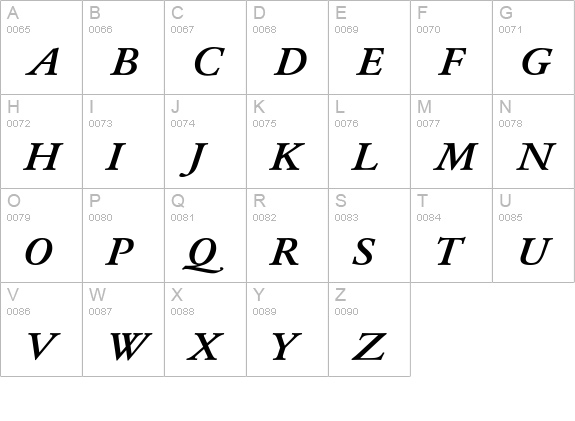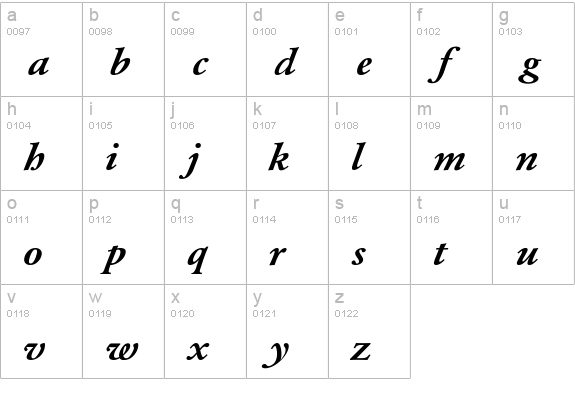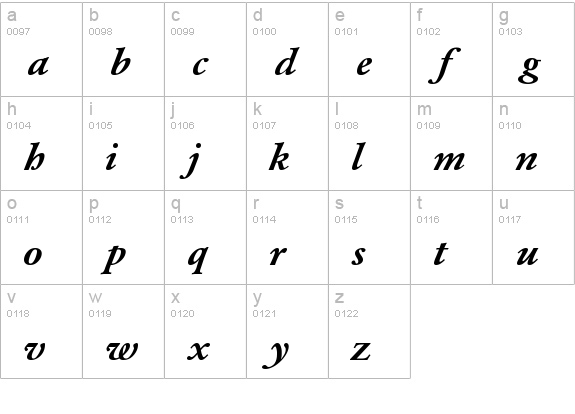
GaramondMediu 4 Font Details
GaramondMedium 4 is a classic and elegant font that exudes sophistication and timelessness. Its balanced letterforms and distinct serifs make it perfect for a wide range of design projects, from formal invitations to branding materials. The medium weight of this font strikes the perfect balance between readability and style, making it ideal for both body text and headlines. What sets GaramondMedium 4 apart is that it is freely available to download at FontsMarket.com. This means that you can access this beautiful font without any cost, allowing you to elevate your designs without breaking the bank. Whether you are a seasoned designer or just starting out, GaramondMedium 4 is a versatile and high-quality font that will surely enhance your projects. Add a touch of sophistication to your work with GaramondMedium 4 today.